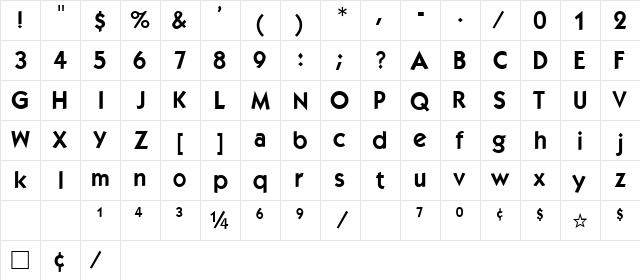
KabelBold Regular
Design Context for KabelBold Typeface
KabelBold takes a measured approach to typography — its balanced proportions and neutral character make it a reliable workhorse for both digital and print work. The heavy weight commands attention and anchors typographic hierarchies.
Pro Tip: Use KabelBold in both headline and body roles to test its range before committing to a single application.